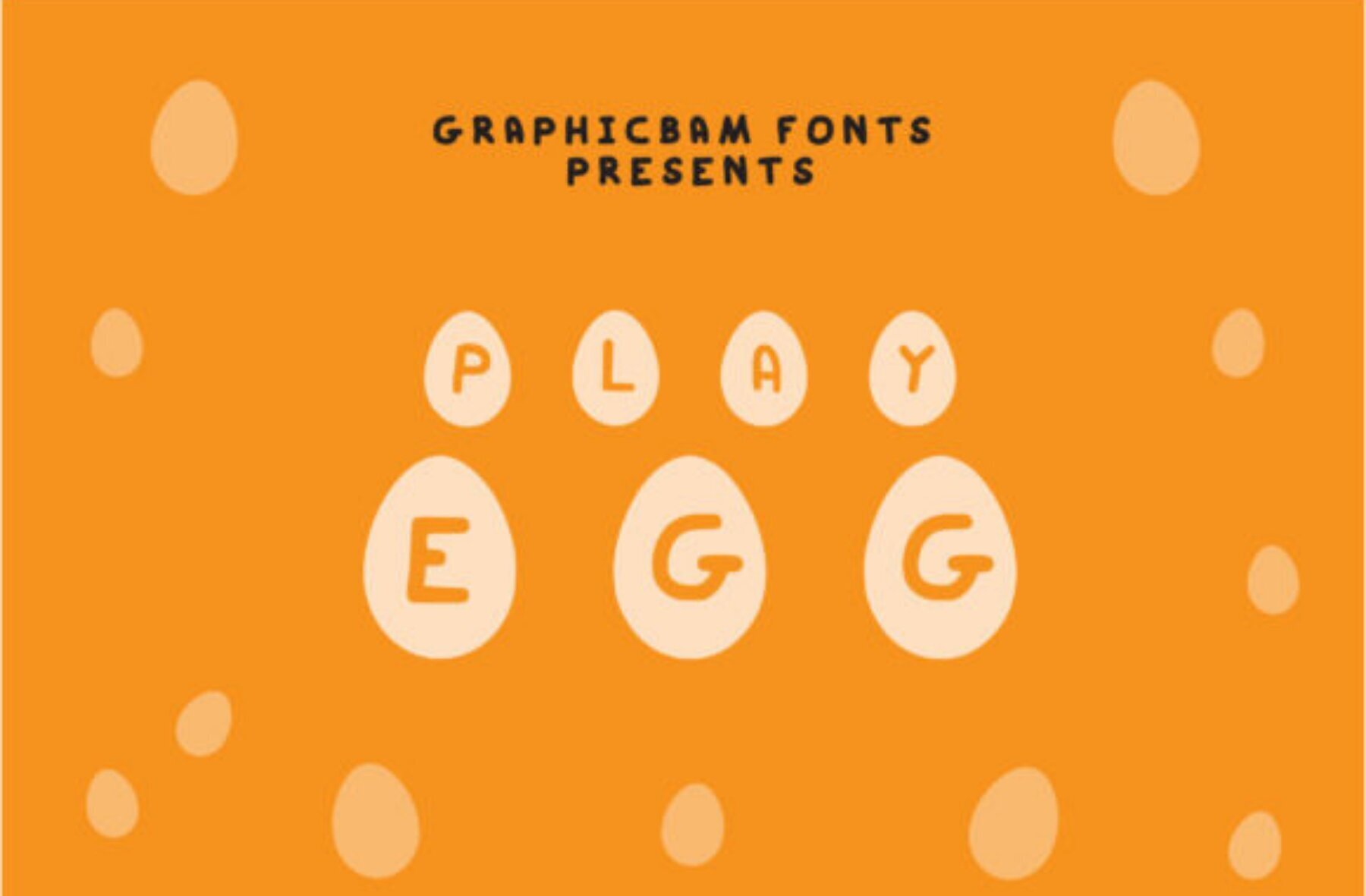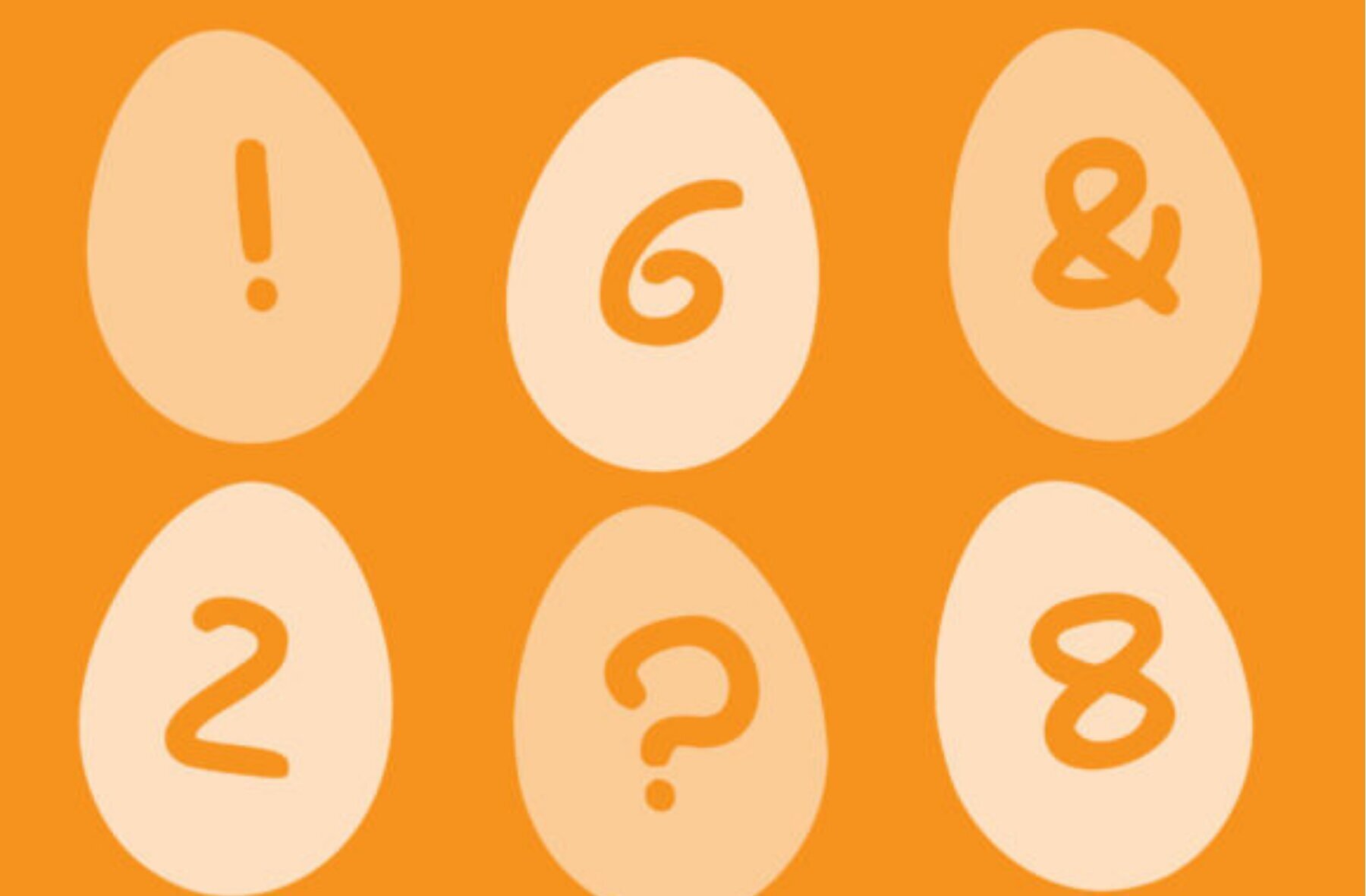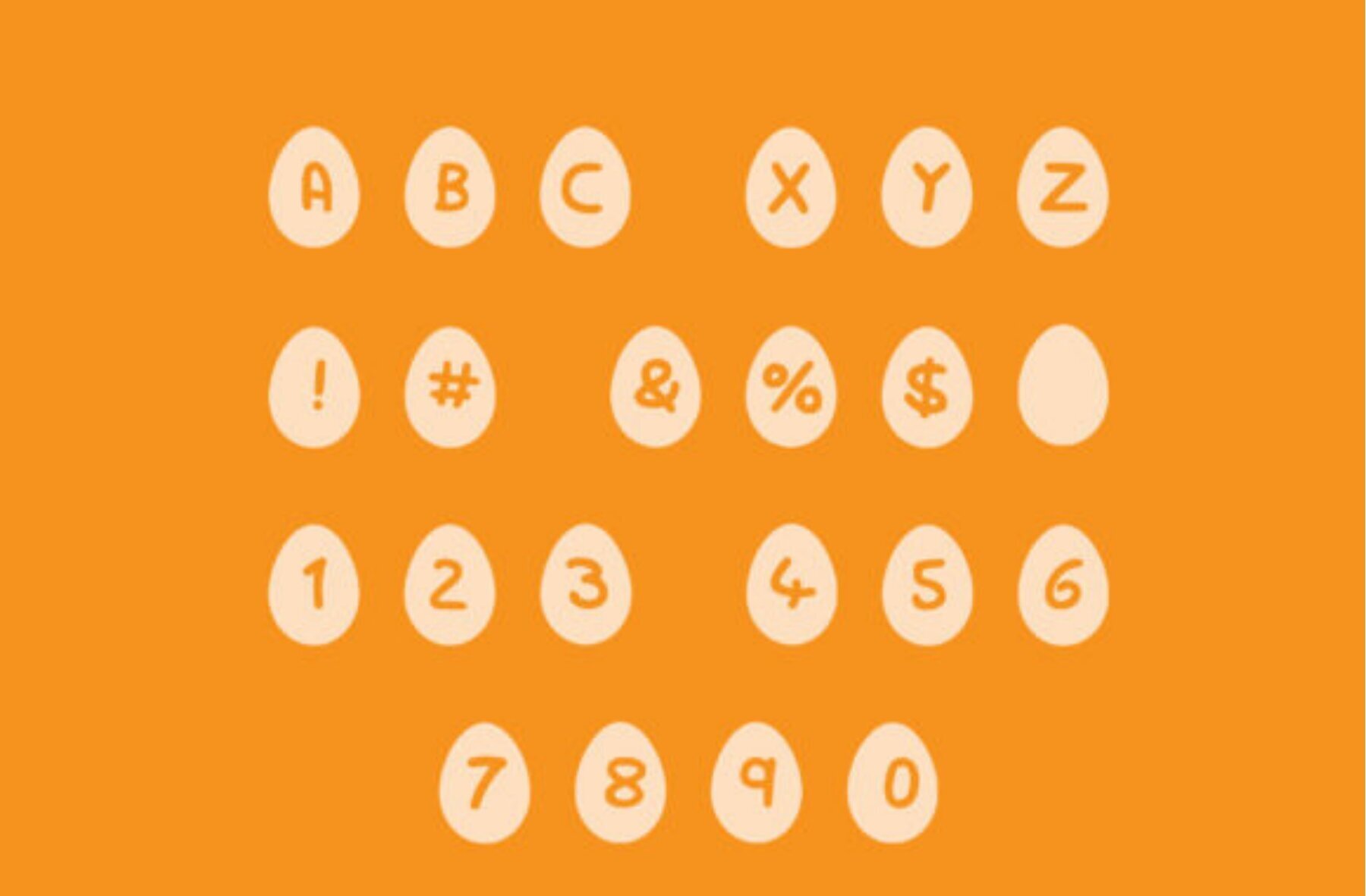
Play Egg Font
Play Egg Regular
Unleash your creativity with Play Egg, a charming decorative font inspired by the humble egg. This playful typeface is ideal for infusing whimsy into farming-related projects, quirky chicken motifs, inviting breakfast menus, and delightful kitchen décor. Each character is creatively designed to bring an egg-cellent flair to your designs.Play Egg: The Decorative Delight
Why Choose Play Egg?